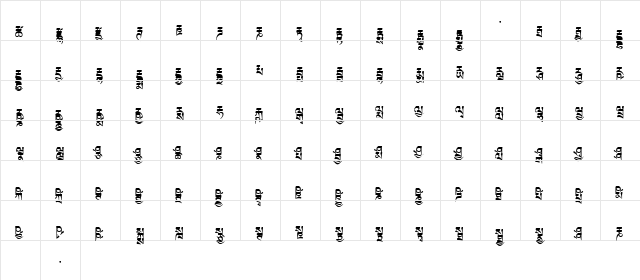
TibetanMachineWeb6 Regular
| Designer | Tony Duff |
Design Context for TibetanMachineWeb6 Typeface
TibetanMachineWeb6 offers clean, dependable letterforms without strong stylistic allegiance, making it a practical choice for designers who need flexibility.